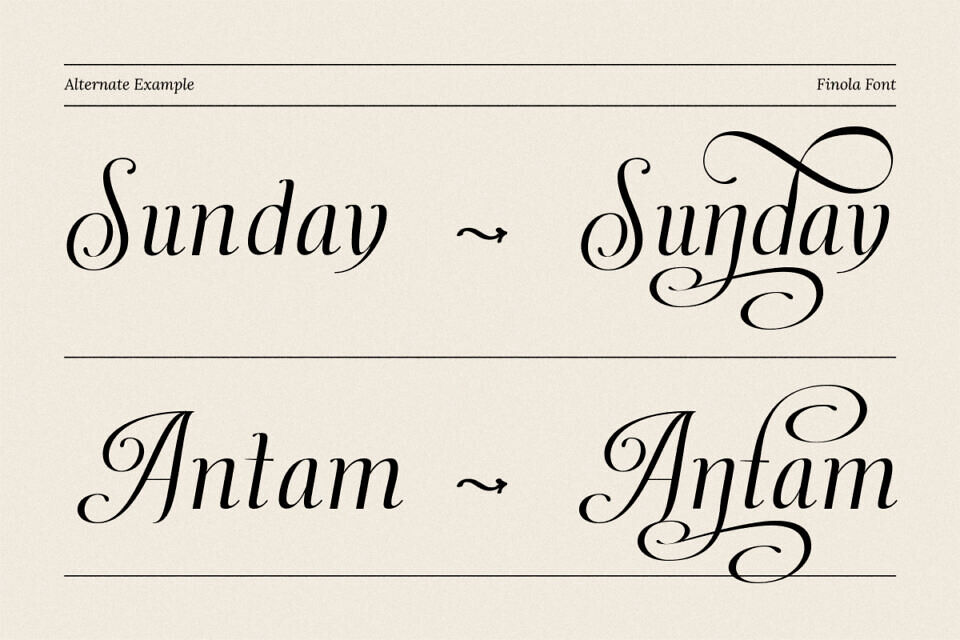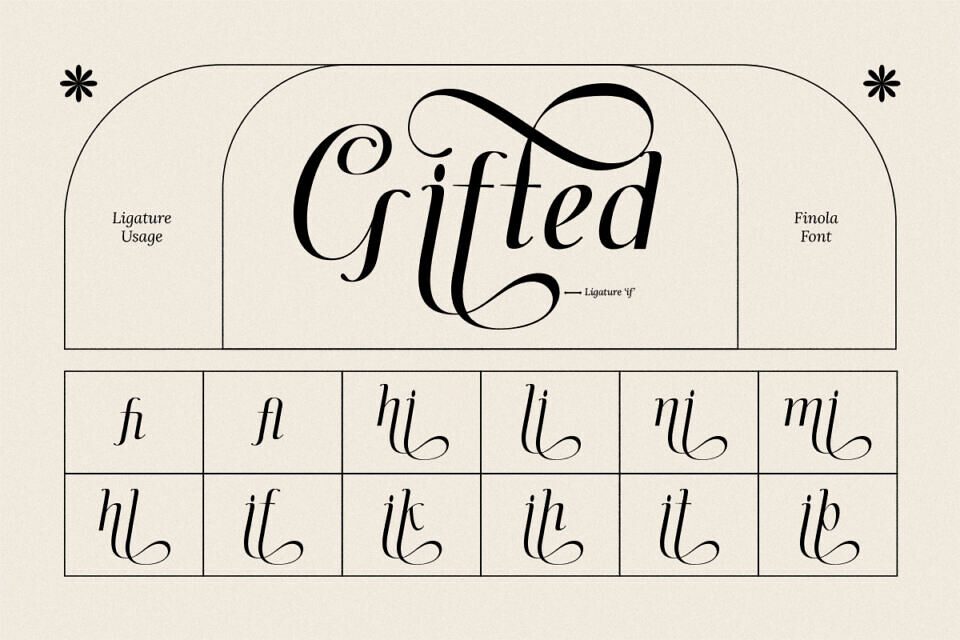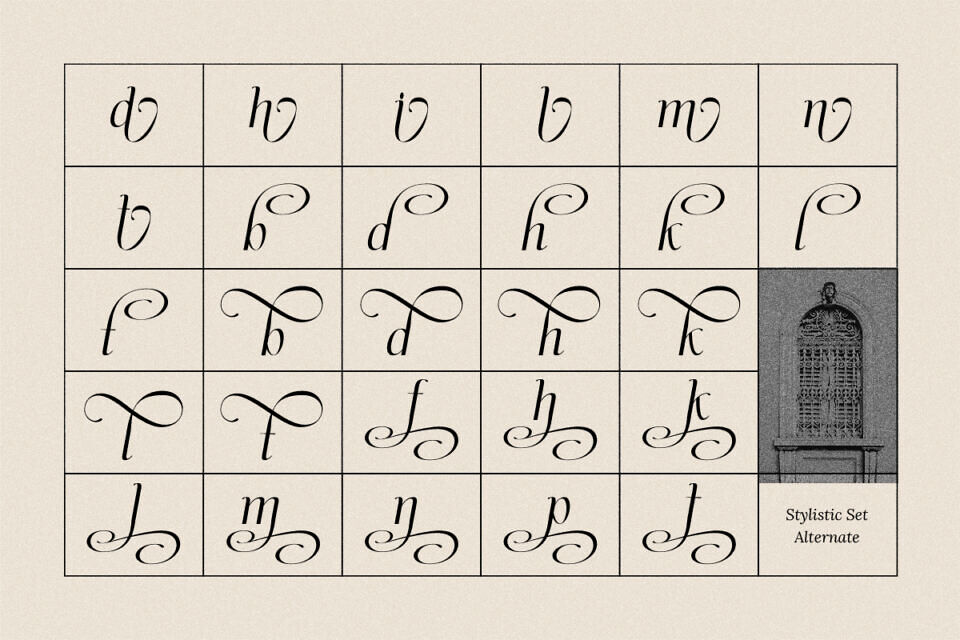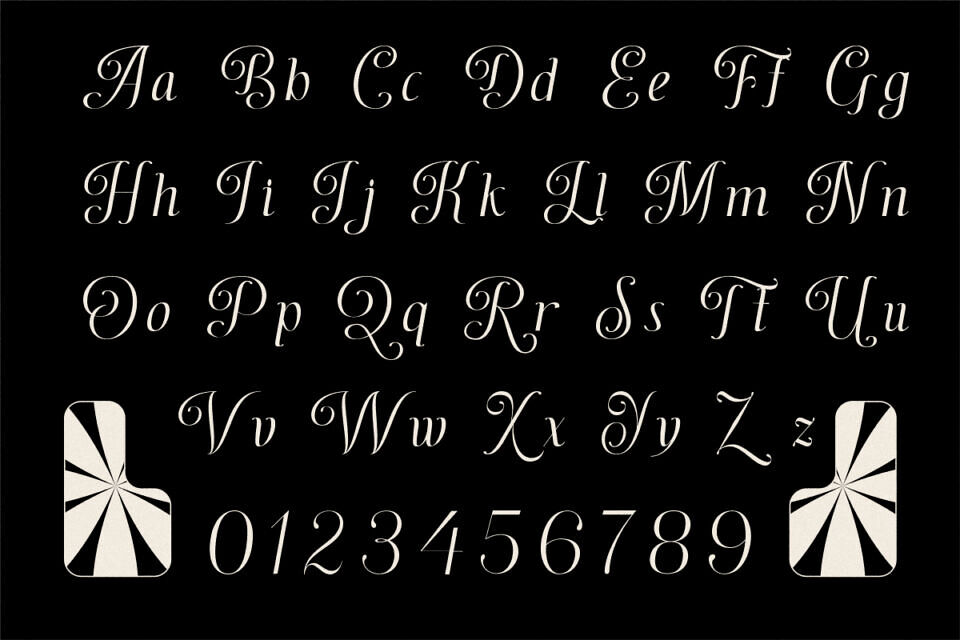
Dh Finola Font
Dh Finola is a luxurious serif font inspired by the beauty of Baroque architecture and classical calligraphy. With its graceful swashes, high-contrast strokes, and flowing curves, Dh Finola radiates sophistication and artistic flair — ideal for wedding designs, romantic branding, editorial projects, fashion, and high-end packaging.
Dh Finola comes in 7 elegant styles (Paid version) — Thin, Extra Light, Light, Regular, Medium, Semi Bold, and Bold — giving designers full control over tone and visual impact. Complete with uppercase and lowercase letters, numerals, punctuation, and extensive multilingual support, Dh Finola also features beautiful ligatures and hundreds of stylistic alternates to help you craft unforgettable compositions.